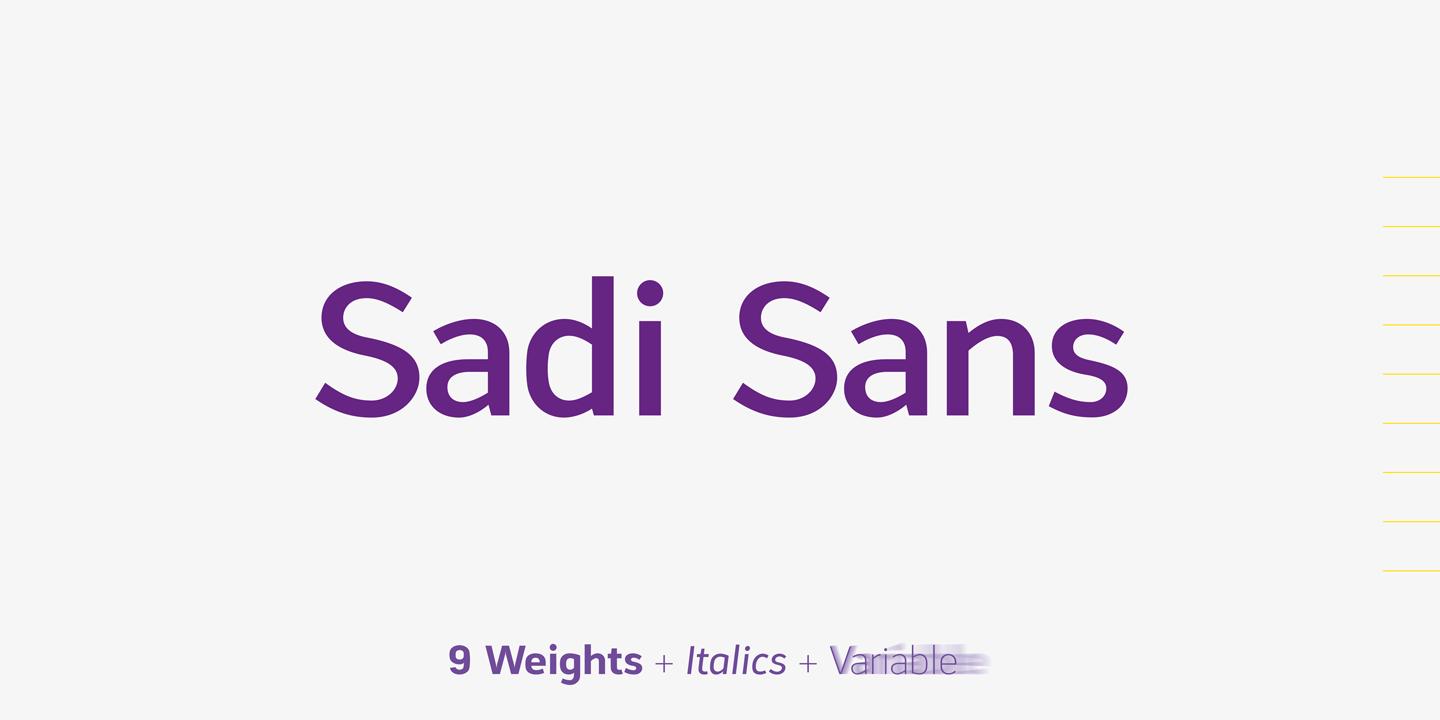
Sadi Sans Font Free Download – Minimalist & Elegant Geometric Sans-Serif
Looking for a clean, contemporary font that balances simplicity with sophistication? The Sadi Sans Font Free Download delivers a sleek, geometric design perfect for modern branding, editorial layouts, and digital interfaces. With its refined curves and excellent readability, this versatile typeface elevates any design project.
Why Choose Sadi Sans Font?
The Sadi Sans Font Free Download stands out with its:
Timeless Geometric Design – Clean lines and balanced proportions
Multiple Weights – From thin to bold for visual hierarchy
Excellent Legibility – Perfect for both headlines and body text
Modern Applications:
Luxury branding & packaging
Minimalist website design
Editorial layouts & magazines
UI/UX interfaces
Key Features
6+ Weight Variations – Full typographic control
Multilingual Support – Covers European languages
OpenType Features – Includes stylistic alternates
Web & Print Ready – Crisp rendering at any size
High-end fashion labels
Architecture firm branding
Tech startup visual identity
Sophisticated presentation design
Designer Tip: Use light weights for airy elegance and bold weights for impactful statements.